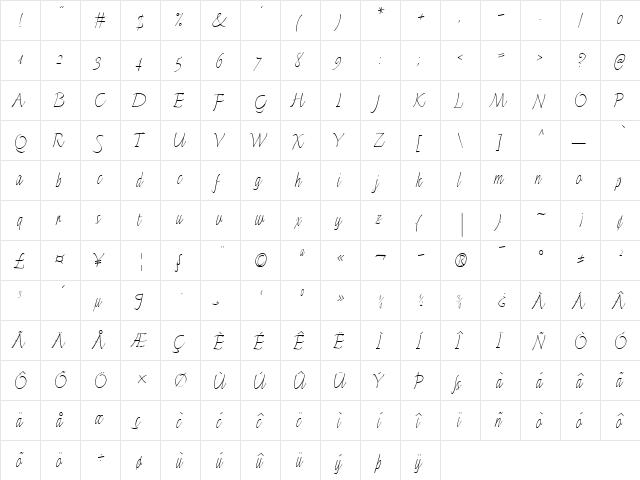
LTFinerliner Micro Regular
Design Context for LTFinerliner Micro Typeface
LTFinerliner Micro offers clean, dependable letterforms without strong stylistic allegiance, making it a practical choice for designers who need flexibility.
Pro Tip: Pair LTFinerliner Micro with a font of contrasting weight or personality to build a more expressive typographic hierarchy.